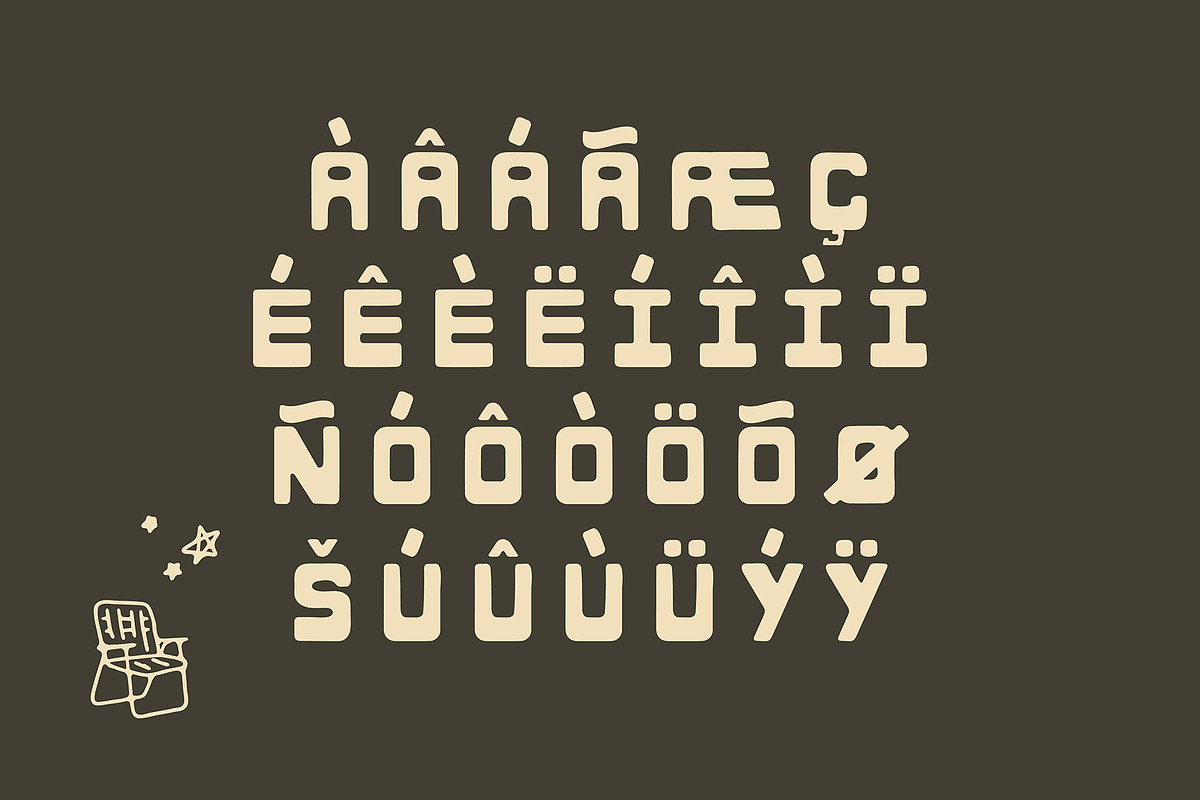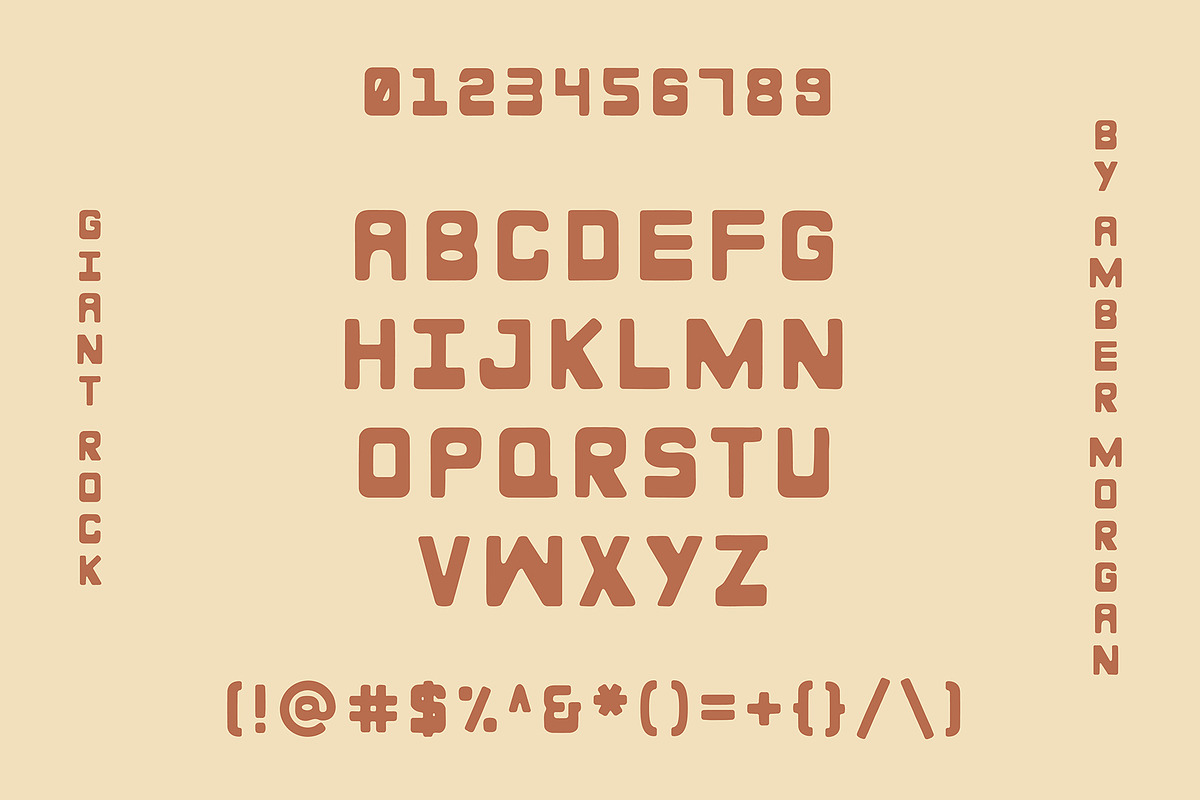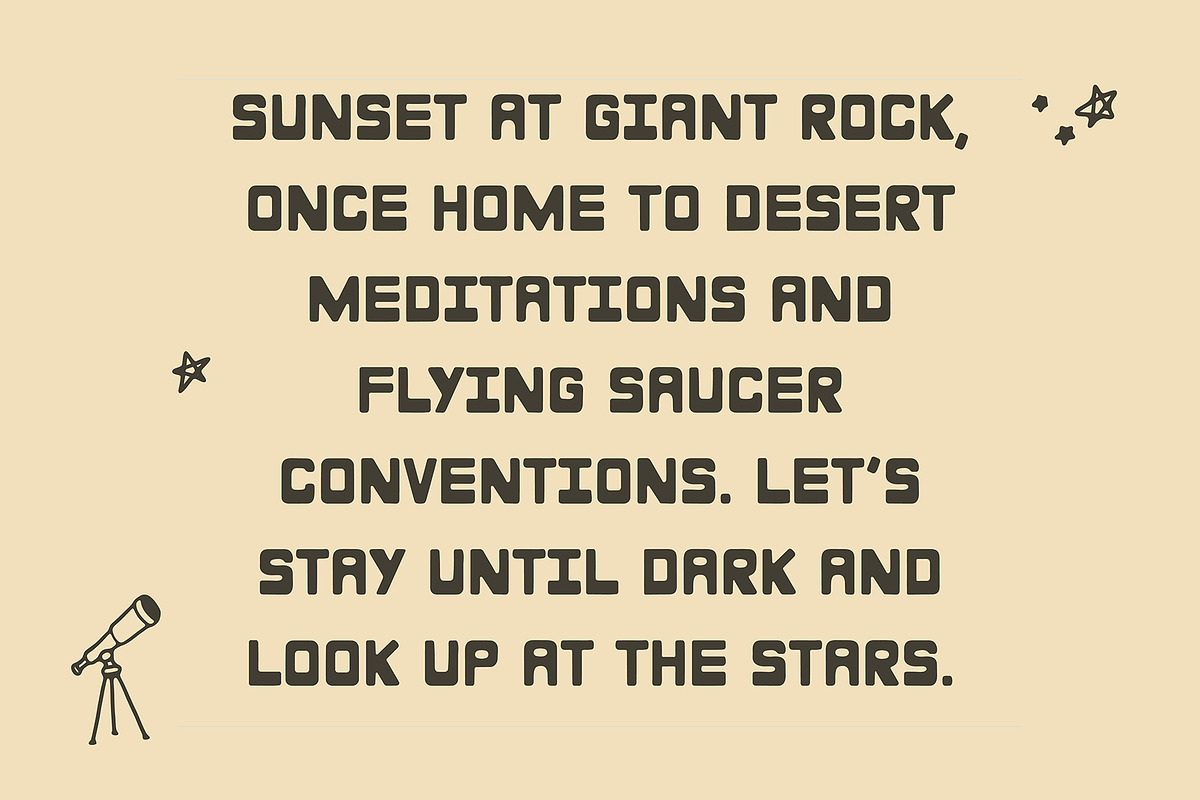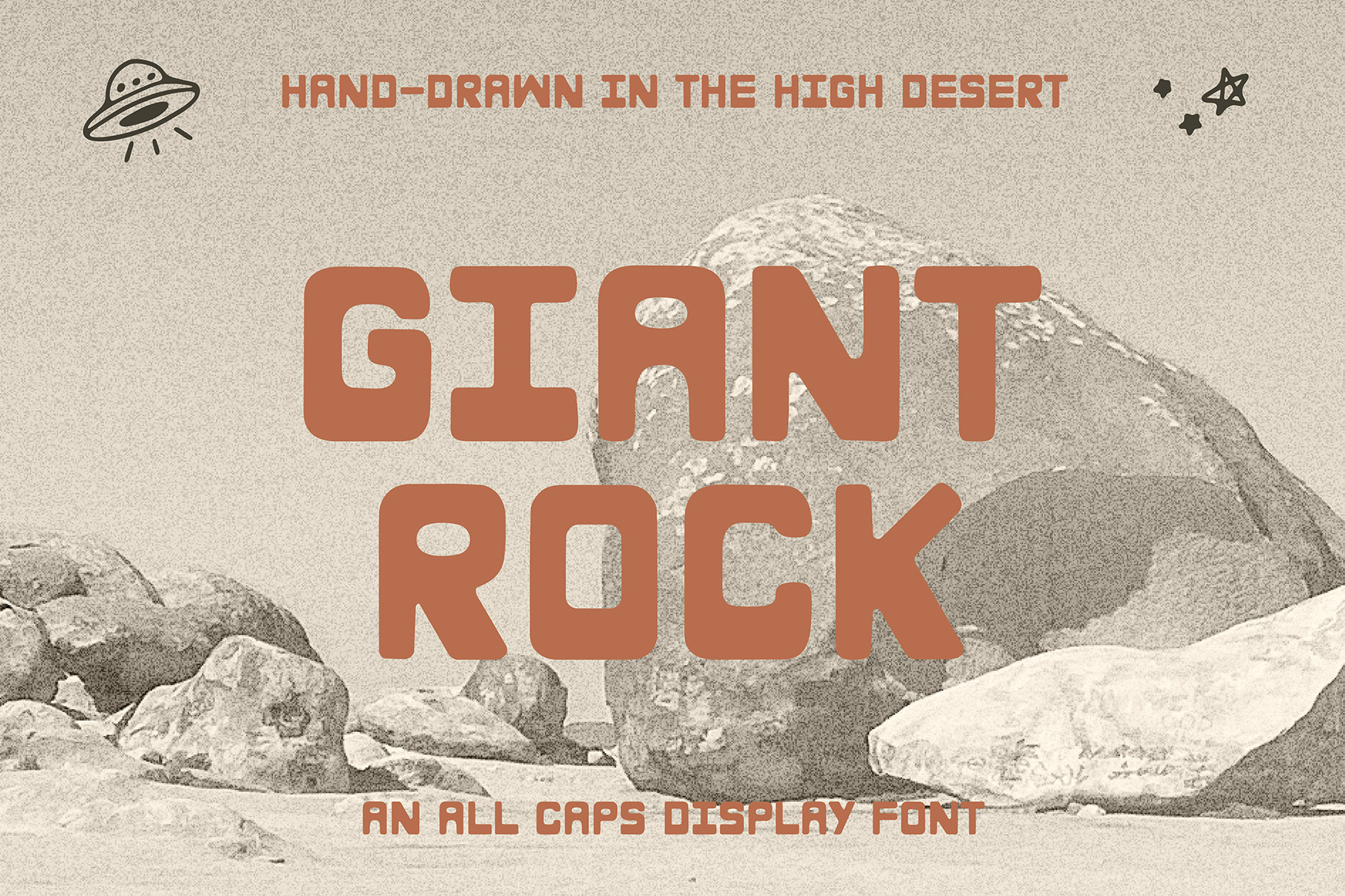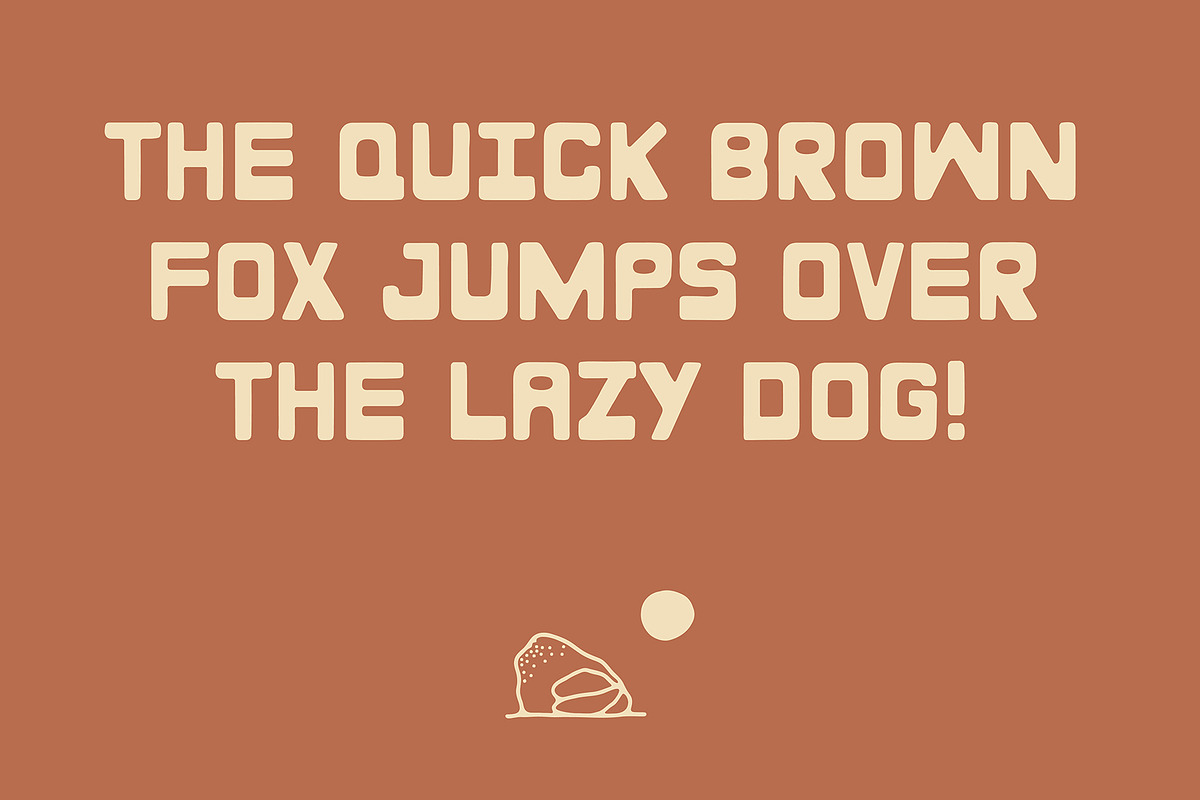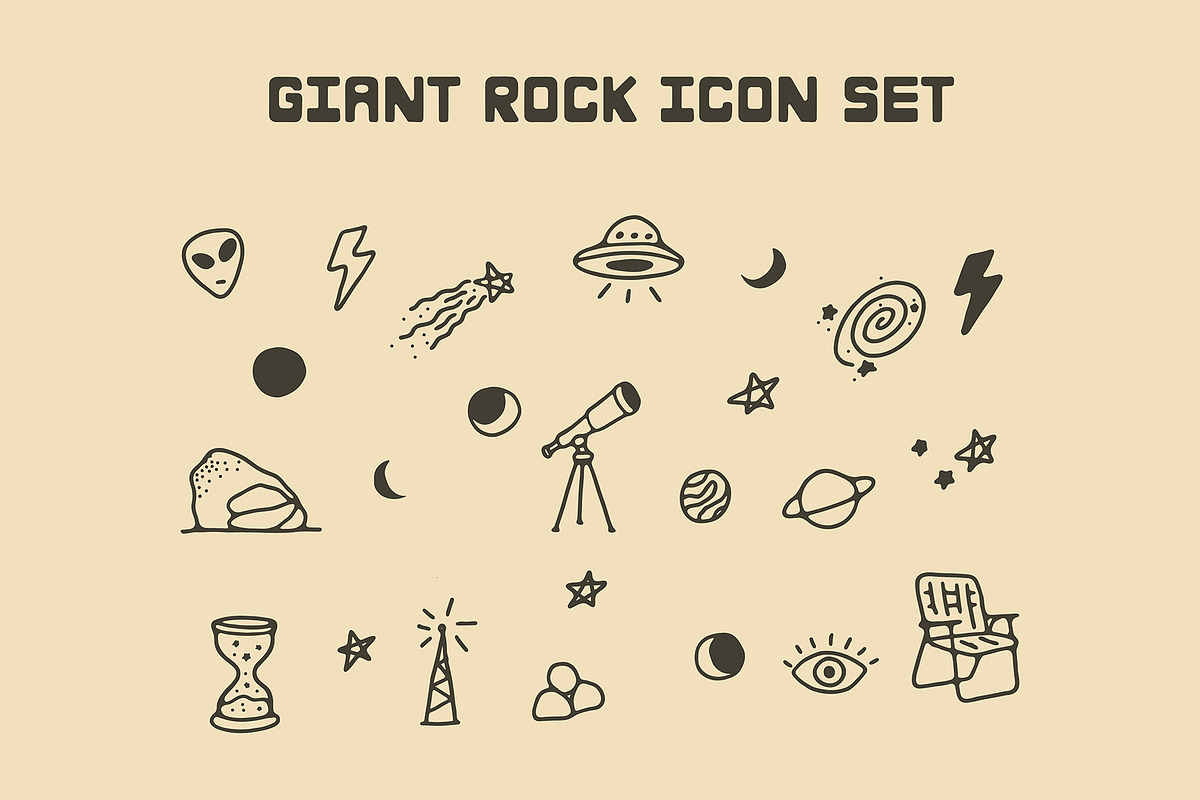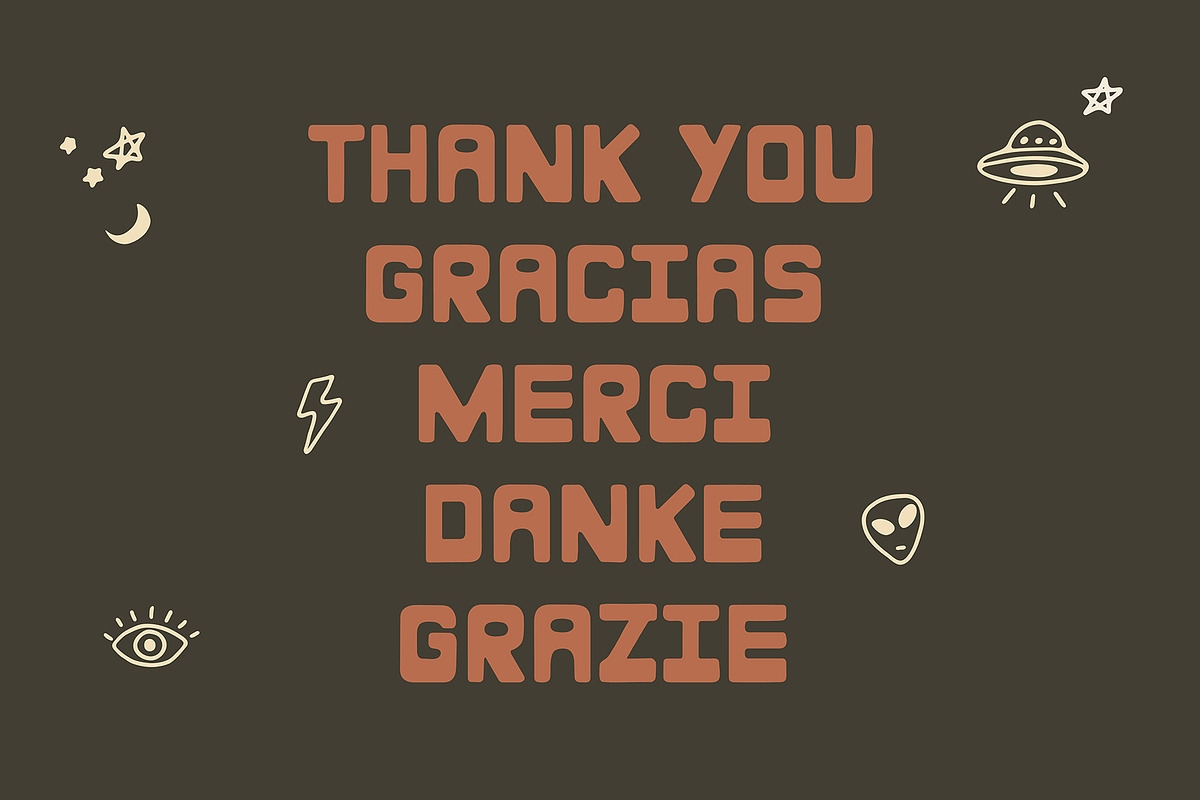
Giant Rock | Hand Drawn Font + Icons
Giant Rock is a hand drawn, all caps display font named for the massive boulder in Landers, California. Inspired by the site’s strange history, from underground meditation sessions to massive 1950s flying saucer conventions, it combines chunky, rounded letterforms, tiny counters, and slightly irregular shapes with a bold, quirky personality.
The pack also includes 23 hand drawn cosmic icons inspired by the stories surrounding Giant Rock. Use them with the font to create layered designs with a strange, otherworldly feel.